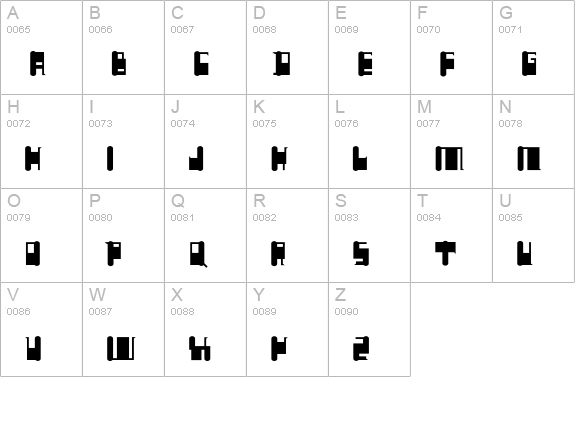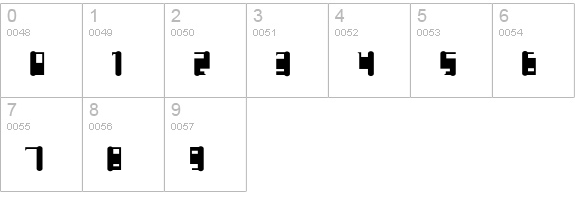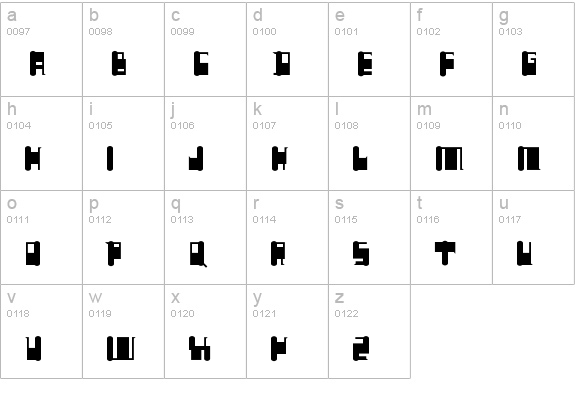
CactusPatch font is a unique and eye-catching typeface that will add a touch of desert charm to any design project. Its distinct and playful style is reminiscent of the prickly cactus plants found in arid landscapes. With its sharp edges and bold strokes, this font is perfect for capturing attention and making a statement. The CactusPatch font is not only visually striking, but it also offers versatility in its application. Whether you're designing a logo, creating social media graphics, or crafting a poster, this font will bring a refreshing touch to your work. Its quirky yet legible letterforms make it easy to read while maintaining its distinct personality. One of the best features of CactusPatch font is that it is freely available to download at FontsMarket.com. This means you can easily access this font without any cost, making it an excellent choice for designers on a budget or anyone looking to add a unique touch to their projects without breaking the bank. With CactusPatch font, you have the freedom to explore and experiment with your designs. Its versatility allows for seamless integration into various design themes and styles, making it suitable for both playful and professional projects. So, if you're looking for a font that will captivate your audience and add a touch of desert-inspired charm to your designs, look no further than CactusPatch font. Download it for free at FontsMarket.com and start creating stunning visuals that stand out from the crowd.